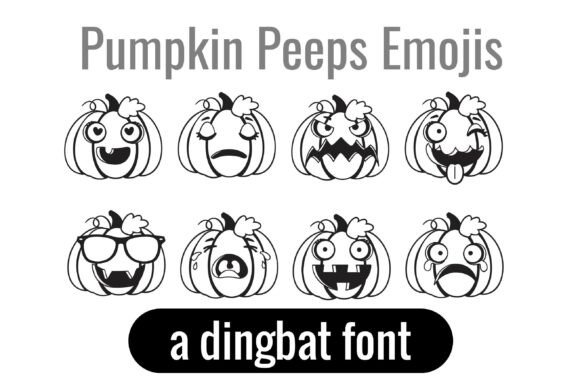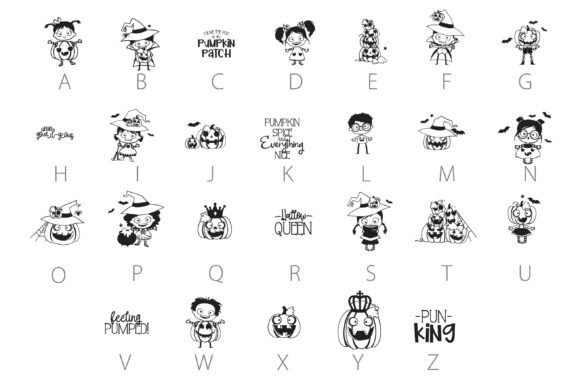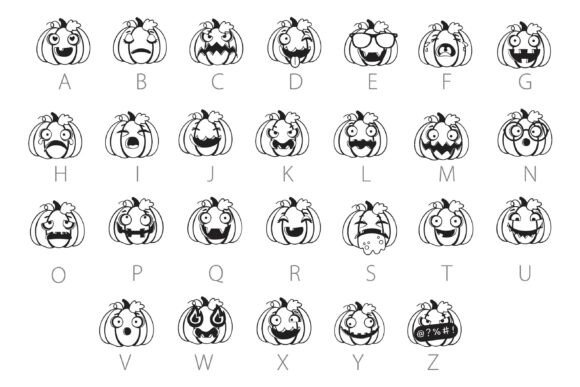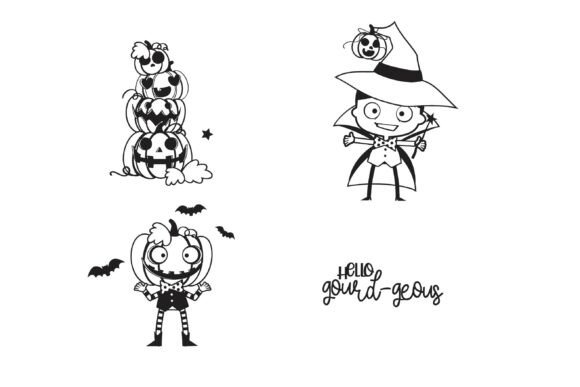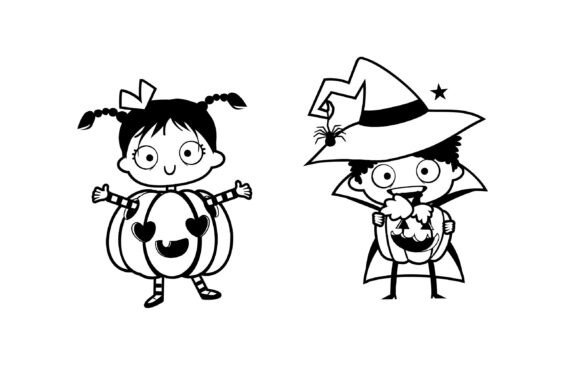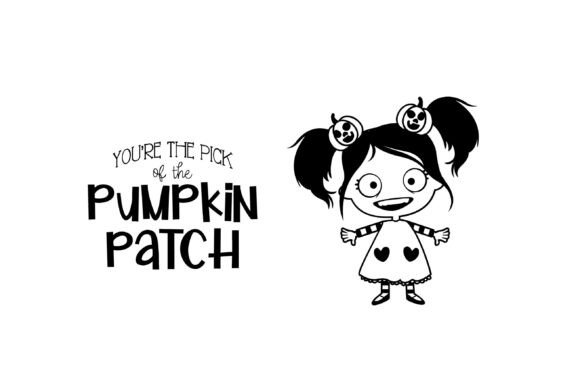
Introduction to Pumpkin Peeps Dingbats Font
Meet Pumpkin Peeps – a delightfully expressive dingbat font duo brimming with pumpkin personality.
This whimsical set includes 52 fun-loving characters across two fonts: one featuring adorable pumpkin-themed kids in costume, and the other packed with animated pumpkin emojis bursting with attitude The Pumpkin Peeps font brings the pumpkin patch to life with quirky kids dressed as witches, vampires, patch queens, and more – all with wide eyes, cheeky smiles, and fall flair.
Key Features of Pumpkin Peeps Dingbats Font